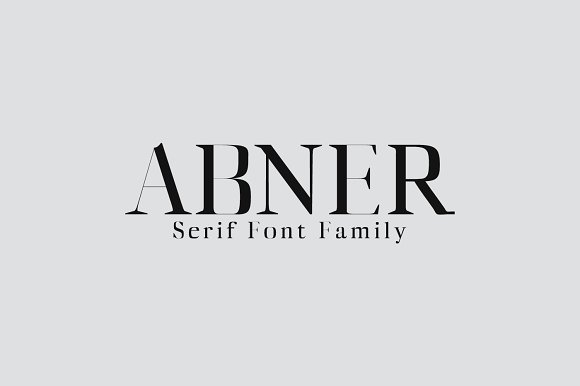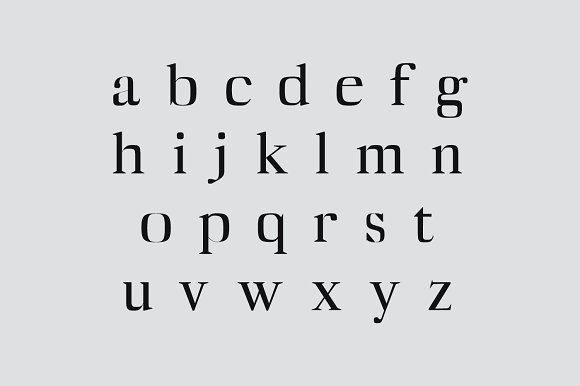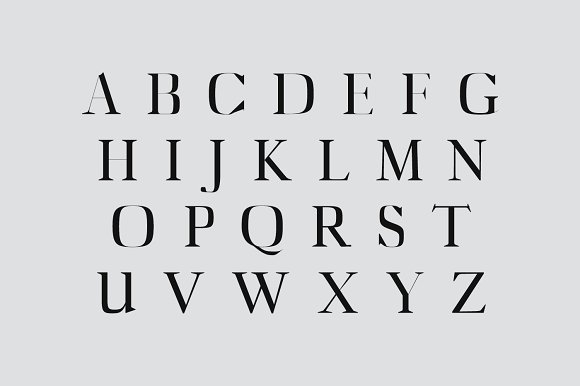
Abner Serif Font Family
Abner Serif font is a set of 5 weights font family and it is good for making creative displays and it has unique and modern serif layout. It Suits best for modern / clean designs, logos, headlines, banners and templates etc. It looks gorgeous in all caps with a wide-set spacing if you want to try a classy look, or beautiful on its own in capital and lowercase letters for something completely timeless.